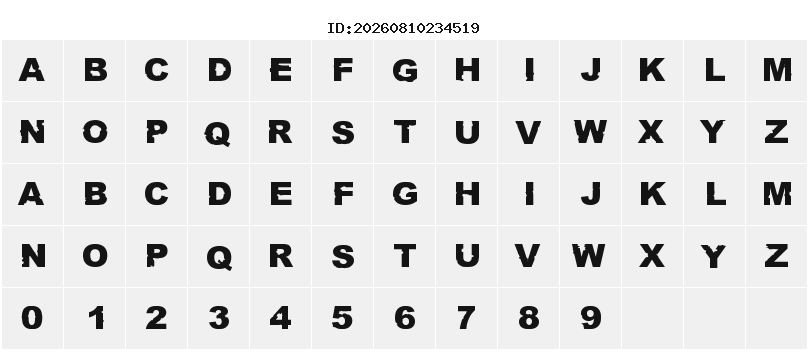
• Font Name: Rust never sleeps
• Designer: junkohanhero
About Rust never sleeps.ttf
Rust never sleeps.ttf is a modern, elegant sans-serif font designed for ultimate readability and visual harmony. Perfect for branding, headlines, web design, and print materials.